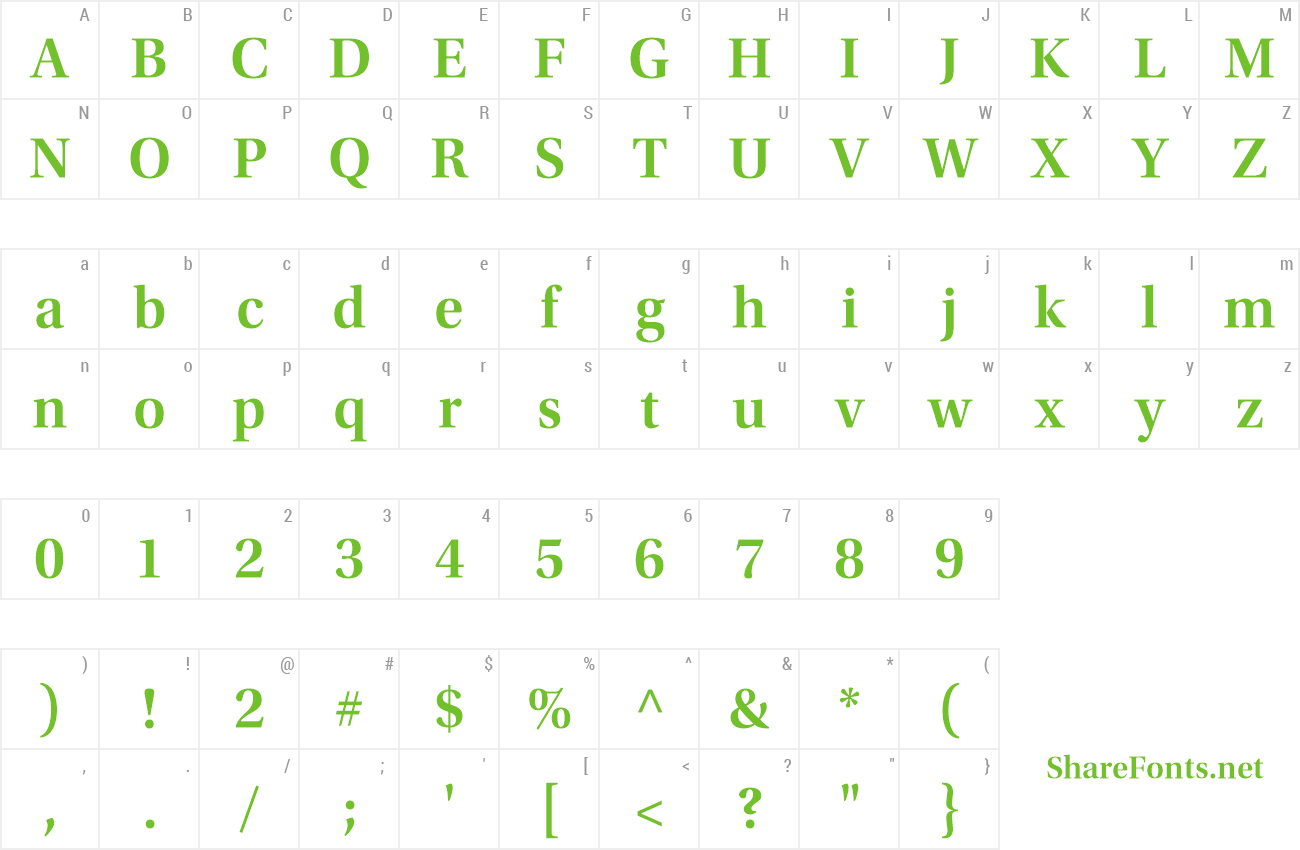
Utopia Std Font
Utopia Std Font - A serif typeface with 25 styles, available from adobe fonts for. Web what is the utopia® std font? Web utopia is the name of a transitional serif typeface designed by robert slimbach and released by adobe systems in 1989. Web explore utopia designed by robert slimbach at adobe fonts. Utopia is an adobe originals text face designed by robert slimbach in 1989. Utopia is an adobe originals text face designed by robert slimbach in 1989. It combines the vertical stress and.